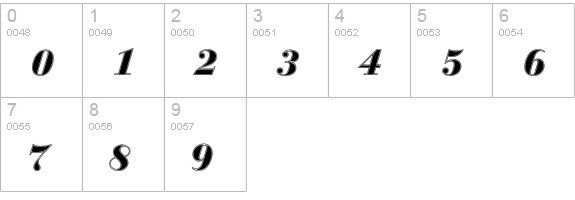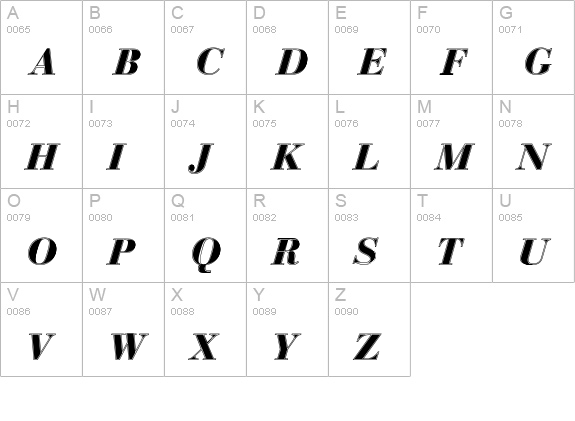
Bauer Bodoni D Bold Italic In1 is a strong, high-contrast, italic variant in the Bauer typeface family \xE2\x80\x94 well suited to headlines, attention-grabbing titles, and strong calls-to-action.
Bauer Bodoni D Bold Italic In1 font is a striking and elegant typeface that exudes sophistication and modernity. Its bold strokes and delicate curves make it perfect for adding a touch of luxury to any design project. The italic styling adds a dynamic and expressive quality to the text, making it stand out with a sense of flair and personality. This font is a versatile choice for both display and body text, making it suitable for a wide range of applications, from branding and advertising to editorial and packaging design. Its timeless design ensures that it will never go out of style, making it a valuable addition to any designer's toolkit. Best of all, Bauer Bodoni D Bold Italic In1 font is available for free download at FontsMarket.com. This means that you can easily access this high-quality font without any cost, allowing you to enhance your designs with professional typography without breaking the bank. Don't miss out on the opportunity to elevate your projects with this stunning font - download it today and see the difference it can make!